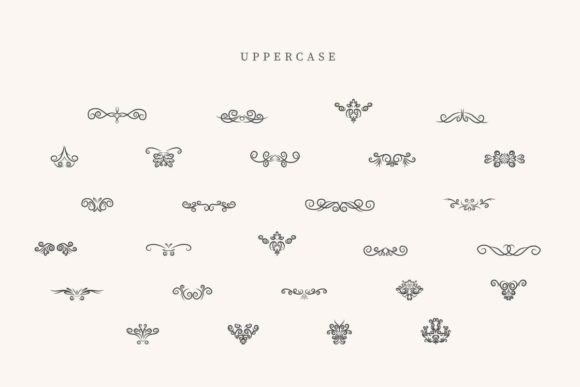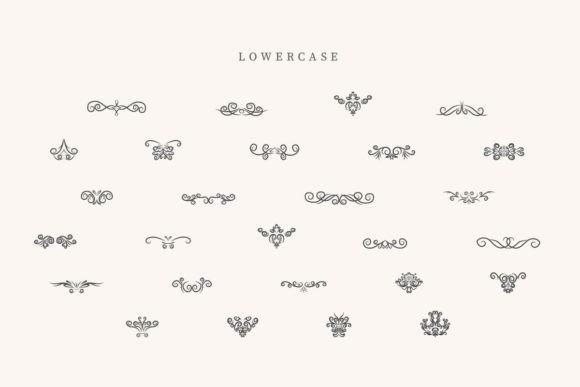
Bring the Beach to Your Designs with Beach Divider Font
Are you looking for a way to add a touch of coastal charm to your designs? Do you want to evoke the carefree vibes of the seaside in your projects? Look no further than Beach Divider, a playful and charming dingbat font that’s perfect for designers and crafters who want to bring a little bit of sunshine to their work.
What is Beach Divider Font?
Beach Divider is a unique and versatile font that’s filled with captivating doodle-style line ornament illustrations. This dingbat font is specifically designed to add a touch of whimsy and playfulness to your designs, making it perfect for summer-themed graphics, beach-inspired invitations, social media posts, and more.
Key Features of Beach Divider Font
- Playful and charming design: Beach Divider features a range of fun and quirky illustrations that are sure to bring a smile to your face.
- Doodle-style line ornament illustrations: The font’s illustrations are reminiscent of hand-drawn doodles, giving your designs a personal and carefree feel.
- Versatile and adaptable: Beach Divider can be used for a wide range of design projects, from summer-themed graphics to beach-inspired invitations and social media posts.
Design Ideas with Beach Divider Font
Beach Divider is a versatile font that can be used for a wide range of design projects. Here are a few ideas to get you started:
- Summer-themed graphics: Use Beach Divider to create fun and colorful graphics for your summer-themed designs, such as beach balls, sunglasses, and ice cream cones.
- Beach-inspired invitations: Create eye-catching invitations for beach-themed parties, weddings, and other events using Beach Divider.
- Social media posts: Add a touch of coastal charm to your social media posts with Beach Divider’s fun and quirky illustrations.
- DIY crafts: Use Beach Divider to create custom signs, banners, and other DIY crafts for your beach-themed projects.
Why Choose Beach Divider Font?
With so many fonts to choose from, why should you choose Beach Divider? Here are a few reasons:
- Unique and eye-catching design: Beach Divider’s doodle-style illustrations are sure to grab attention and add a touch of personality to your designs.
- Versatile and adaptable: Beach Divider can be used for a wide range of design projects, making it a great addition to your font library.
Bring the carefree vibes of the seaside to your designs with Beach Divider, a playful and charming dingbat font that’s perfect for designers and crafters who want to add a touch of coastal charm to their projects. With its unique and eye-catching design, versatility, and ease of use, Beach Divider is sure to become a favorite in your font library.